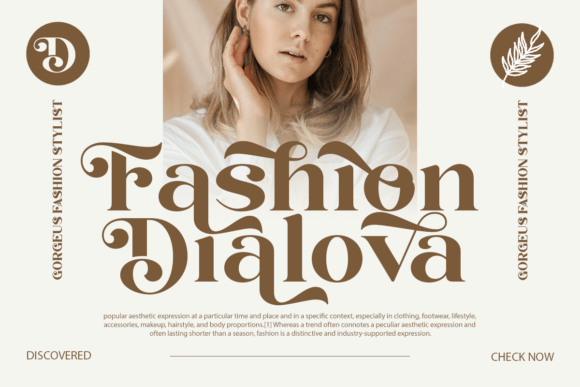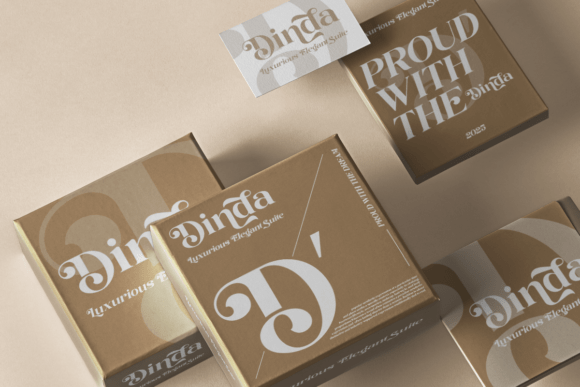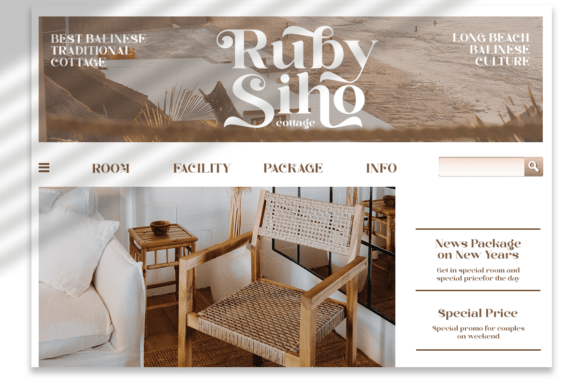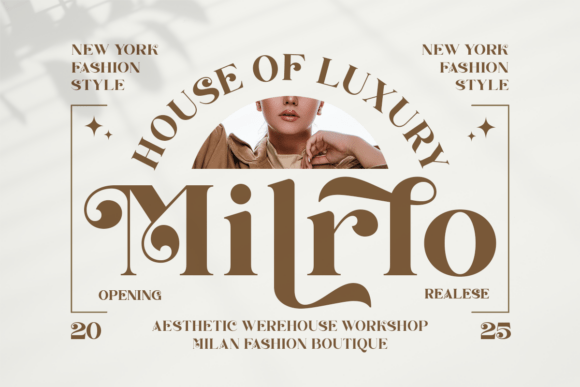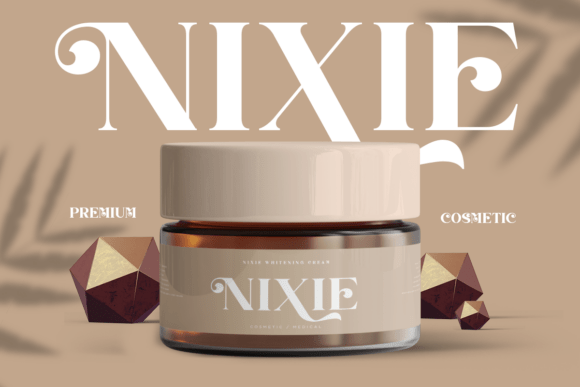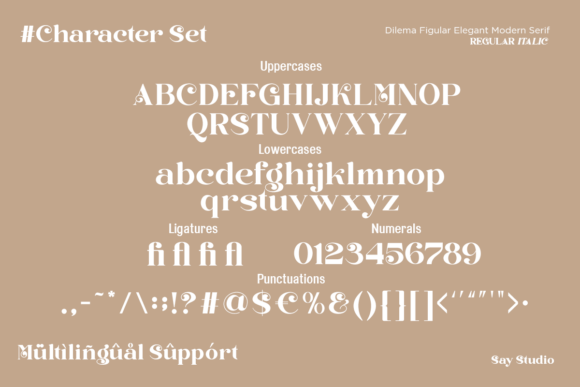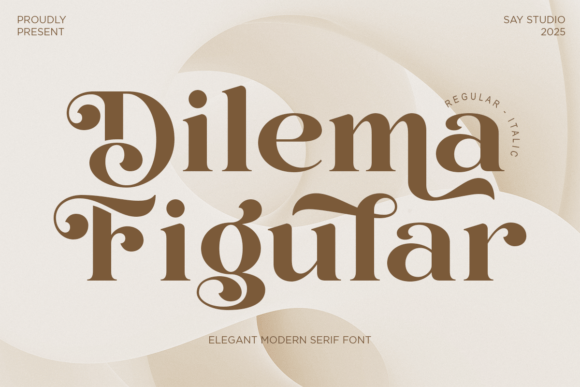
Introducing Dilema Figular Font: Elevate Your Designs with Elegance and Sophistication
In the world of typography, a well-crafted font can make all the difference in elevating your designs from ordinary to extraordinary. If you’re a designer or crafter looking for a typeface that exudes elegance, sophistication, and refinement, look no further than the Dilema Figular Font. This stunning modern serif font is designed to impress, with its perfect blend of curved lines, expressive flourishes, and luxurious feel.
A Font that Embodies Elegance and Sophistication
Dilema Figular is more than just a font – it’s an experience. With its refined curves and subtle contrast, this typeface creates a sense of opulence and refinement that’s perfect for high-end branding, editorial layouts, wedding stationery, boutique packaging, and visual identities. The font’s serene and poised demeanor makes it an excellent choice for designers who want to add a touch of romance, style, and premium quality to their creative projects.
Key Features of Dilema Figular Font
- Regular and Italic Styles: Dilema Figular offers two distinct styles to cater to your design needs, ensuring versatility and flexibility in your creative projects.
- Elegant Serif Forms: The font’s serifs are carefully crafted to create a sense of luxury and refinement, perfect for high-end designs.
- Subtle Contrast: The subtle contrast in the font adds depth and dimension, making it perfect for designs that require a touch of sophistication.
- PUA-Encoded: Dilema Figular is PUA-encoded, providing effortless access to all glyphs, swashes, and alternate characters, making customization a breeze.
The Dilema Figular Font: Ideal for a Variety of Design Applications
Whether you’re working on a branding project, wedding stationery, editorial design, or boutique packaging, Dilema Figular is the perfect choice. Its versatility and elegance make it suitable for a wide range of design applications, including:
- Branding: Create a lasting impression with Dilema Figular’s luxurious and refined aesthetic.
- Wedding Design: Add a touch of romance and elegance to your wedding stationery, invitations, and decor.
- Editorial Design: Elevate your editorial layouts with the font’s sophisticated and refined feel.
- Logo Design: Create a memorable logo that exudes elegance and refinement.
- Packaging: Add a touch of luxury to your boutique packaging and labels.
- Social Media: Stand out on social media with Dilema Figular’s unique and sophisticated aesthetic.
Why Choose Dilema Figular Font?
With so many fonts available, why choose Dilema Figular? Here are just a few reasons why this font stands out:
- Unique and Memorable: Dilema Figular’s elegant serif forms and subtle contrast make it a unique and memorable font that’s sure to leave a lasting impression.
- Versatile: The font’s versatility makes it suitable for a wide range of design applications, from branding to wedding design.
- Elegant and Sophisticated: Dilema Figular exudes elegance and sophistication, making it perfect for high-end designs.
- Easy to Customize: The font’s PUA-encoded feature makes customization easy, allowing you to access all glyphs, swashes, and alternate characters with ease.
In conclusion, the Dilema Figular Font is an exceptional choice for designers and crafters looking to elevate their designs with elegance, sophistication, and refinement. With its unique blend of curved lines, expressive flourishes, and luxurious feel, this font is sure to make a lasting impression. Whether you’re working on a branding project, wedding stationery, or editorial design, Dilema Figular is the perfect choice. So why wait? Discover the power of Dilema Figular Font and take your designs to the next level.